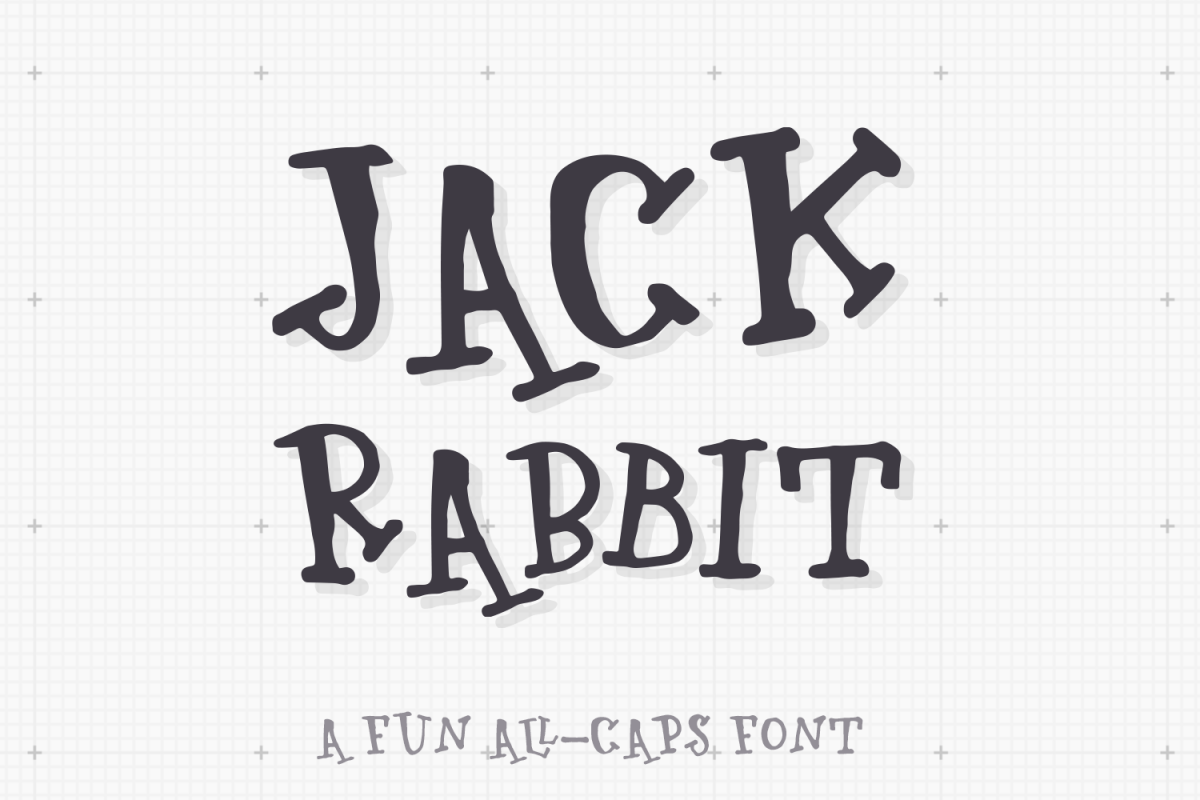
Jackrabbit | A Fun Quirky Font
Jackrabbit
Introducing Jackrabbit, a fun all-caps font with plenty of personality! Entirely created by hand, this font has lots of multilingual characters and and ligatures. It works great with headlines, flyers, posters, quotes, merchandise, blog headers, etc.